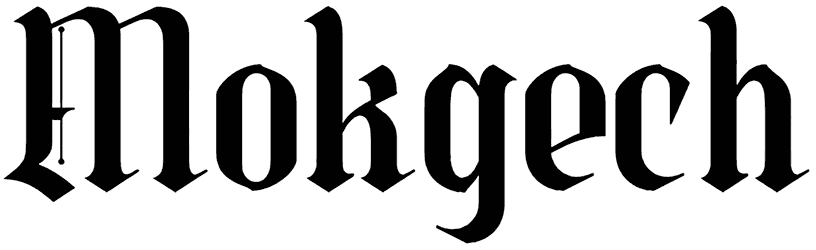
Mokgech Font
If you are busy designing the packaging of a cosmetic brand or want to step into the fashion world, Mokgech can become your strong point. This medieval font has clear traces of the classical world, and its characters look like musical notes.
For this reason, it will be ideal for designers interested in luxury fonts. This gothic font can become one of the most used fonts in the collection for a long time, attracting even strict employers.